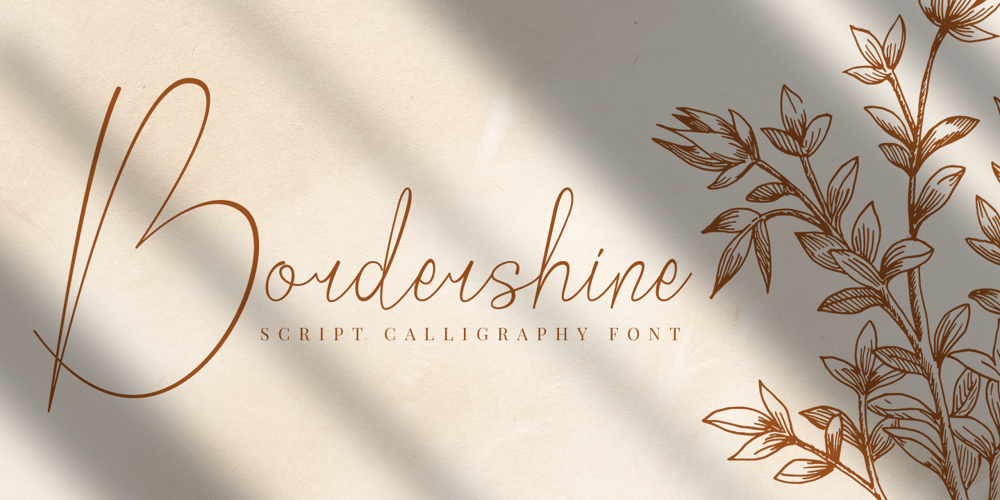
Bordershine Script Font Family was designed by Muhammad Khoirul Amal and published by CBRTEXT Studio. Bordershine Script contains 1 styles and family package options. Bordershine Script is a beautiful and elegant modern calligraphy font. It’s perfect for branding, wedding invitations, photography, bloggers, logos, content, greeting cards and more. Bordershine script calligraphy has beautiful uppercase and lowercase letters, numbers, and ligatures.If you have any questions, before or after purchase, please feel free to get in touch.Thank You.